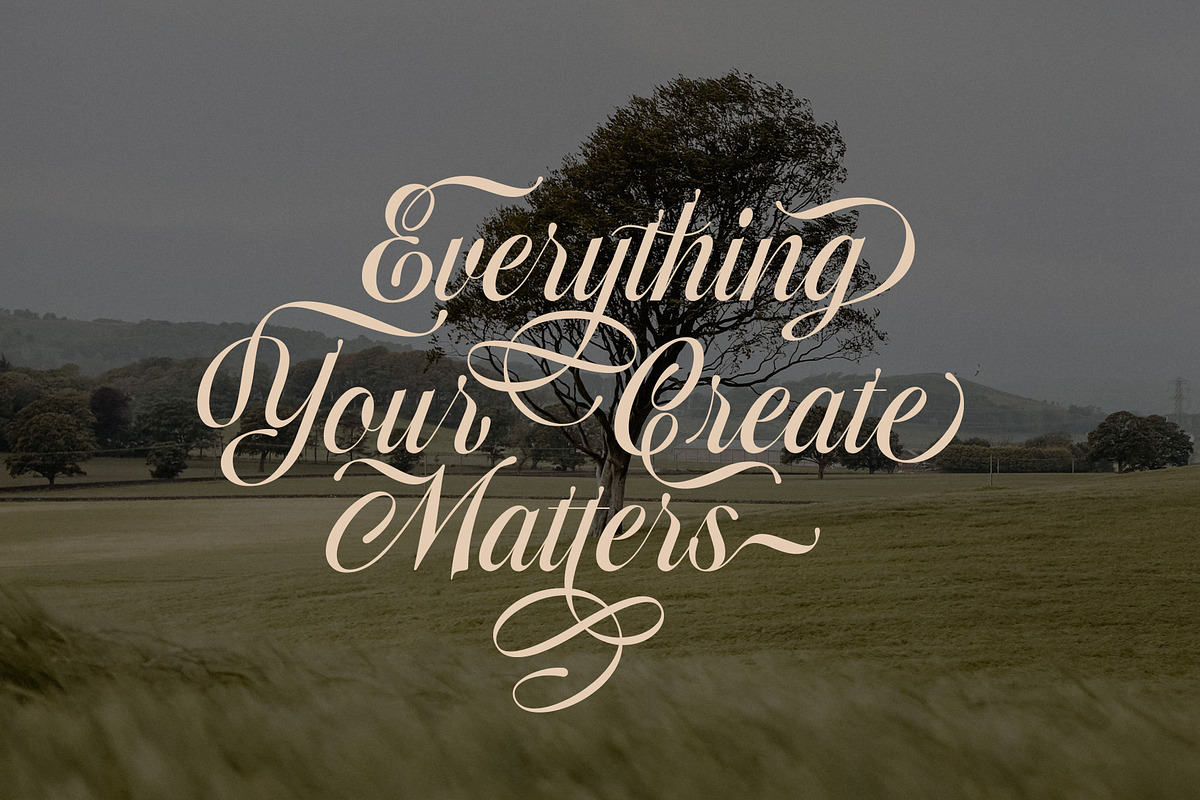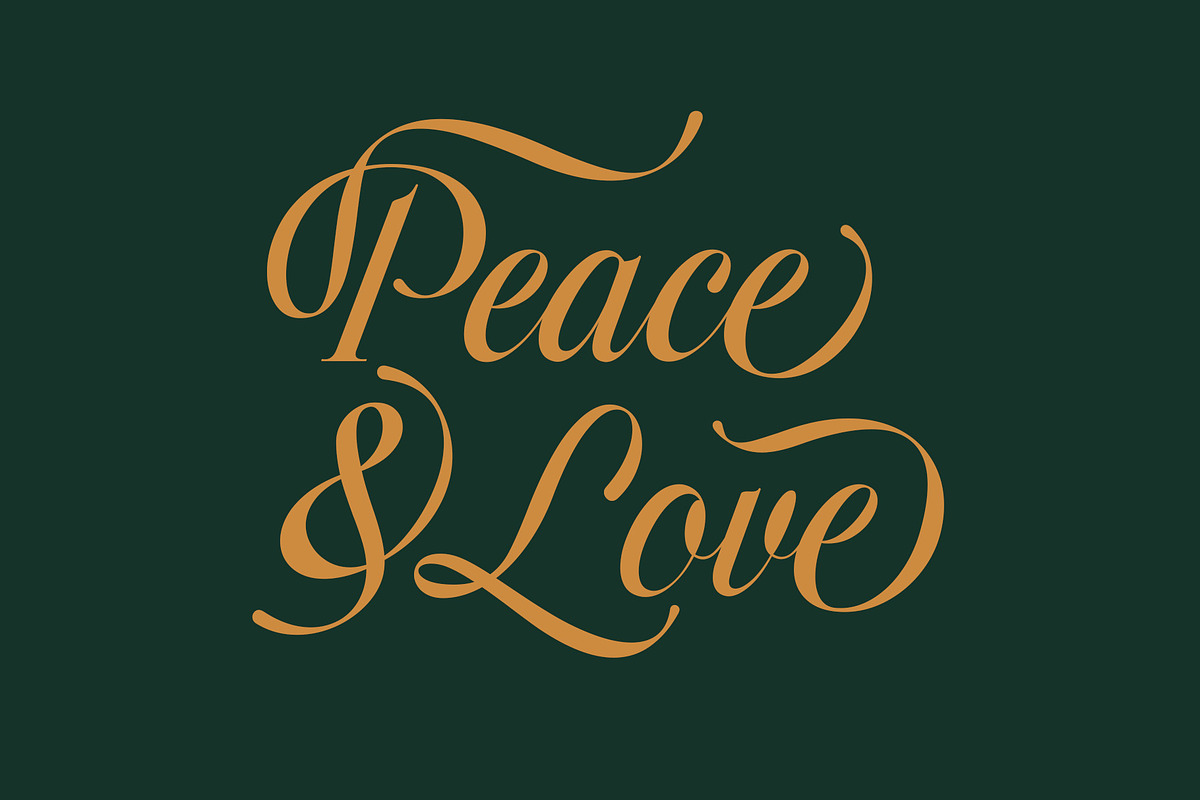
ED Dodgeland is a script font with an elegant classic style. The creation of this font was inspired by hand lettering books and various works on social media and designed in such a way that it becomes a unique font and has various choices of letter styles.
It is complete with 230+ stylistic sets, ligatures, and also multi-language support which adds to the aesthetic that makes your work more interesting.